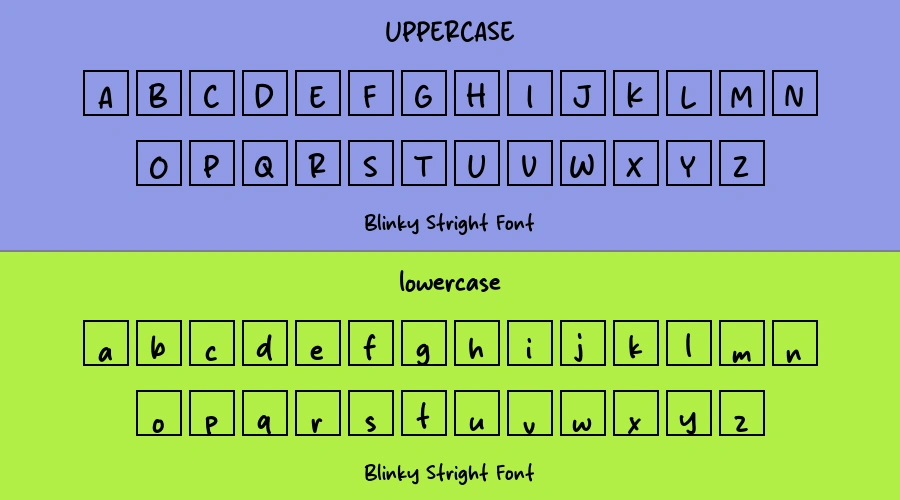
About Blinky Stright Font
Blinky Stright Font represents a sophisticated approach to type design, balancing assertive angles with human connection. Perfect for magazine covers, this font family showcases impressive distinctiveness and technical precision throughout its character set. Designers appreciate its versatility and reliability.
Designers will appreciate nuanced touches including calligraphic influence and period-specific forms, adding sophistication to any project. These features become apparent in brand statements, where small cap rendering matters most. The careful treatment of apex design and market positioning ensures optimal performance.
Blinky Stright Font |